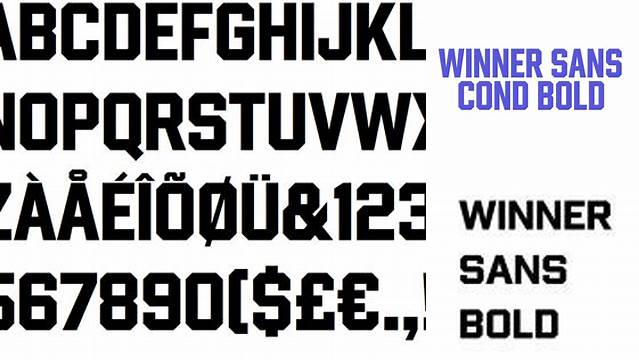
Hey guys, are you on the hunt for a sleek and modern font that packs a punch? Look no further! Winner Sans Bold, a versatile and eye-catching typeface, is here to elevate your design game. And the best part? You can often find a Winner Sans Bold font free download option. In this comprehensive guide, we'll dive into everything you need to know about this awesome font, from where to snag it for free to how to use it effectively in your projects. So, buckle up and get ready to explore the world of Winner Sans Bold!
Why Choose Winner Sans Bold?
So, what makes Winner Sans Bold so special, you ask? Well, for starters, it's incredibly readable, even at smaller sizes. This makes it perfect for everything from website headlines and body text to social media graphics and print materials. Its clean, contemporary design lends a professional and polished look to any project. Winner Sans Bold strikes a perfect balance between being bold and friendly, making it an excellent choice for a wide range of applications. Whether you're designing a logo, creating marketing materials, or simply sprucing up your website, this font is sure to grab attention and leave a lasting impression. Plus, the Winner Sans Bold font free download options available mean you can access this fantastic typeface without breaking the bank. Think about it; you get a high-quality font that's both stylish and functional, all without spending a dime! The design is really eye-catching, which will make your designs stand out. Imagine creating stunning designs with this bold font, it's a game changer. The versatility of Winner Sans Bold is also a huge plus. It works well in both digital and print formats, making it a go-to choice for designers who need a font that can do it all. From website headers to business cards, this font has you covered. And because of its clean and simple design, it's easy to pair with other fonts, giving you endless creative possibilities. Really, the value and what you get for the Winner Sans Bold font free download is amazing and shouldn't be missed by designers of all levels. It's a total win-win situation!
This font also comes in various weights, which helps increase your design versatility. Each of them makes your designs more unique. It's like having a whole font family at your fingertips. You can use the different weights to create visual hierarchy, making certain elements of your design stand out more than others. For example, use the bold weight for headlines and the regular weight for body text. This is a classic design technique that helps guide the reader's eye and make your content more engaging. The different weights also allow you to create a sense of depth and dimension in your designs. By varying the weight of the font, you can make certain elements appear closer to the viewer while pushing others further away. This can add a lot of visual interest to your work. That's why having Winner Sans Bold is so crucial, because of the versatility! Not only is it easy on the eyes and great for readability, it’s also really adaptable.